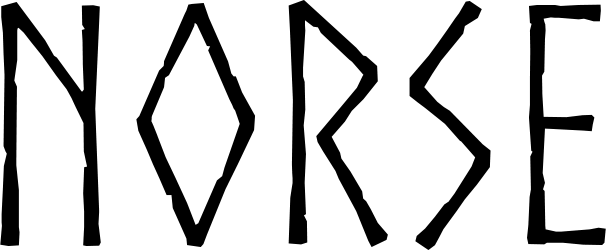
Norse Font
It’s turning to offer a unique Viking typeface, a Norse font that can leave a lasting impression on designing retro graphic projects with its existing different versions.
Featuring an angular and sharp design inspired by the traditional writing style will be successful in many classical movie posters, invitation cards, TV shows, book covers, branding, and clothing. Since it does not have lowercase letters, it outperforms other competitors in highlighting your typography.